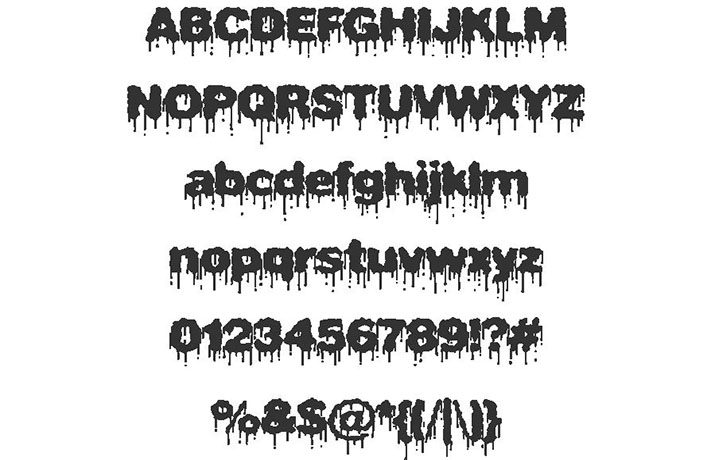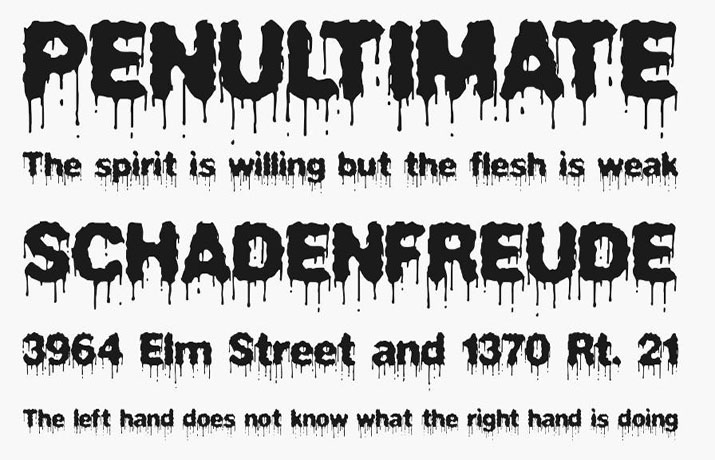
Plasma Drip Font is a horror and Halloween display typeface that captures a sense of dripping and authenticity. Ideal for scary headers, logos, movie posters, and more.
Its texture looks very similar to horror movie fonts. This is why it is most likely that the designer took inspiration from this aspect.
Its large, bold letters ooze with fear, with eerie dripping ink details that bring a chilling horror theme to life. So, this helps to give a scary look to the entire typeface.
- Its spooky feel and impressive design versatility make it a great option for various purposes, including social media banners, headers, game graphics, product design, signs, movie posters, packaging design, comic books, body text, and vintage Movie posters. , flyers, headers, titles, branding marketing, and many other impressive things.